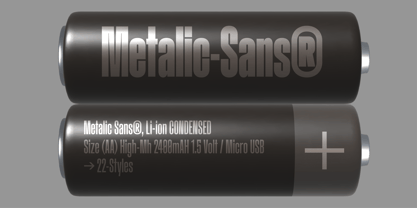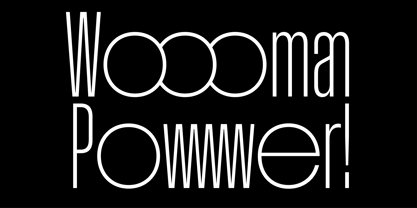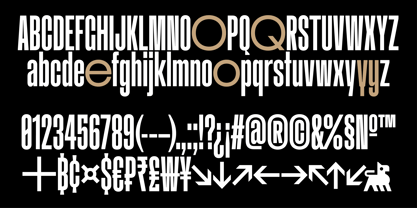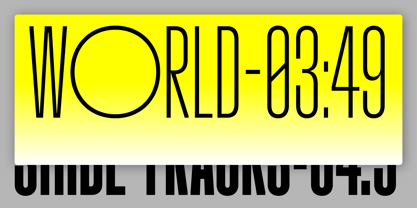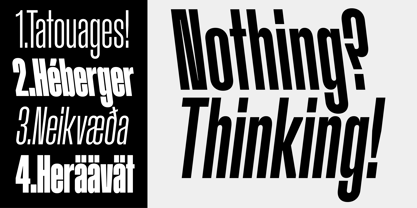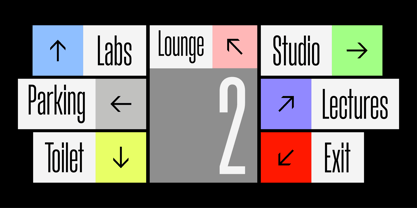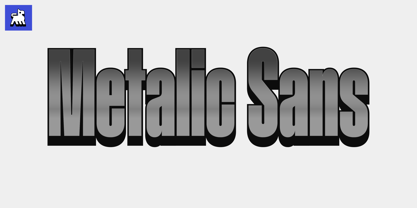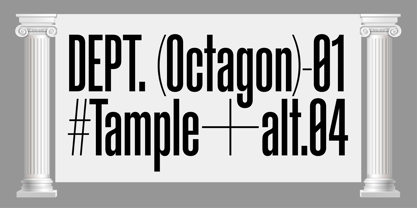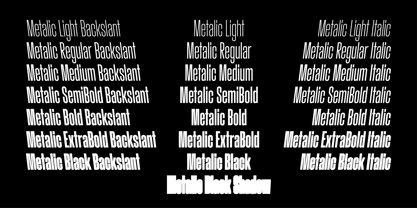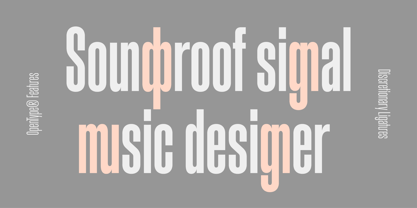
Metalic Sans
The Metalic Sans Font Family was designed by Mark Bagio and published by Jet type system. Metalic Sans contains 25 styles and family package options. More about this family
Metallic Sans is a bold, condensed grotesque typeface that blends industrial elegance with modern functionality. Inspired by 20th-century typographic heritage, it features a wide range of OpenType capabilities including case-sensitive forms, fractions, small figures, expressive discretionary ligatures, and a selection of unique yet harmonious alternates.
Metallic Sans is ideal for Logo, titles, headlines, product design, editorial layouts, packaging, and dynamic branding. Its confident structure and refined detail make it a versatile choice for contemporary design needs.